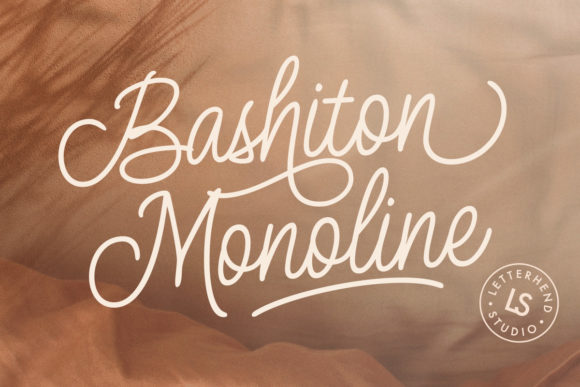
Introducing Bashiton Monoline Font, the perfect choice for adding a touch of elegance to your designs. This vintage styled graceful script font is here to captivate your imagination and take your creative projects to new heights.
Created by the talented designers at Letterhend, Bashiton Monoline Font brings a unique and timeless charm to any design project. Whether you're working on wedding banners, invitations, branding, or any other creative endeavor, this font is your ultimate companion.
With its distinct and ravishing style, Bashiton Monoline Font will instantly transport your audience to a world of sophistication and romance. Its seamless curves and delicate strokes evoke a sense of grace, making it the ideal choice for all things love and celebration.
Imagine the enchanting wedding banners you can create with this extraordinary font. Watch as your designs come to life with a touch of vintage elegance, capturing the essence of every couple's special day. Let Bashiton Monoline Font be the voice that speaks volumes about the love and commitment shared between two souls.
But this font isn't limited to just weddings. Its versatility knows no bounds. Use it to add a touch of class to your branding materials, making your business stand out from the crowd. Elevate your social media posts, blog graphics, and advertisements with the captivating power of Bashiton Monoline Font.
What sets Bashiton Monoline Font apart is not just its stunning aesthetics, but also its keyword-rich features. As the best font for wedding banners, it has been meticulously designed to cater to your every need. Its attention to detail ensures that your text will be legible, clear, and visually striking.
In conclusion, Bashiton Monoline Font is not just a font; it's an experience. Its vintage charm, captivating style, and keyword-rich features make it the ultimate choice for anyone looking to elevate their designs. So why wait? Let the magic begin and let Bashiton Monoline Font become the heart and soul of your creative journey.